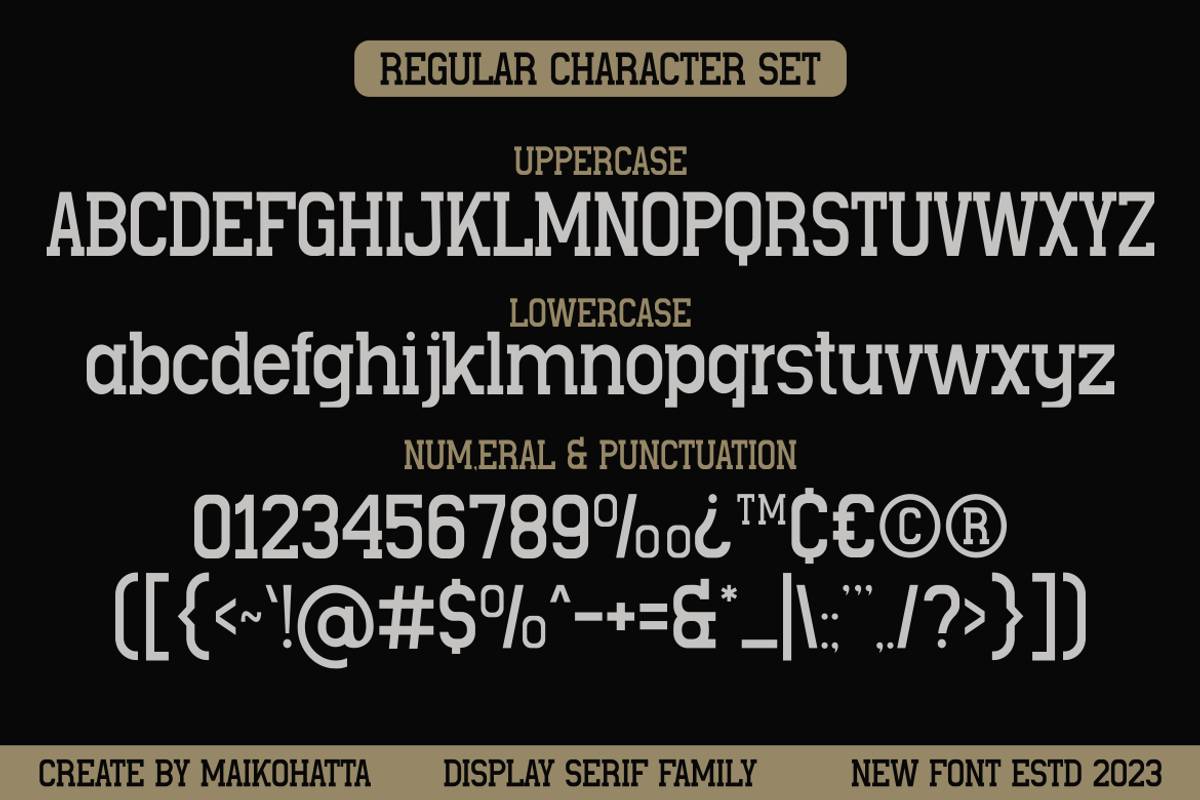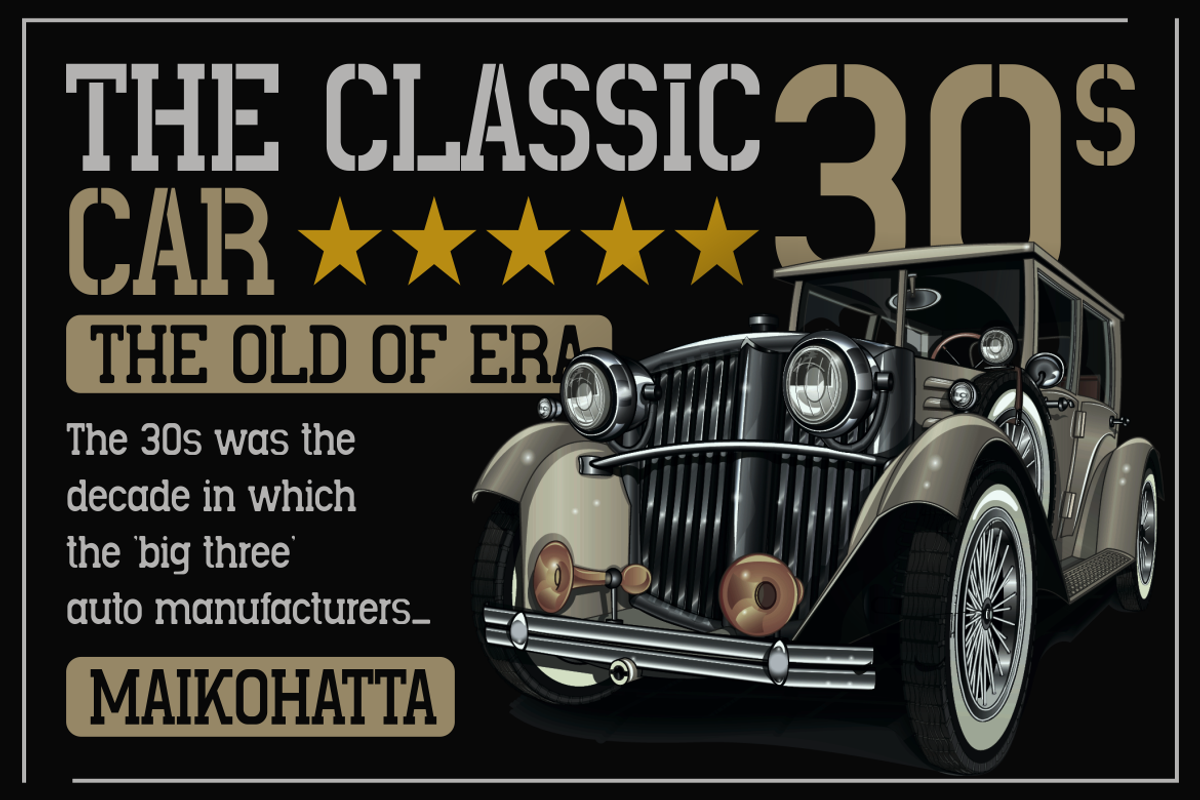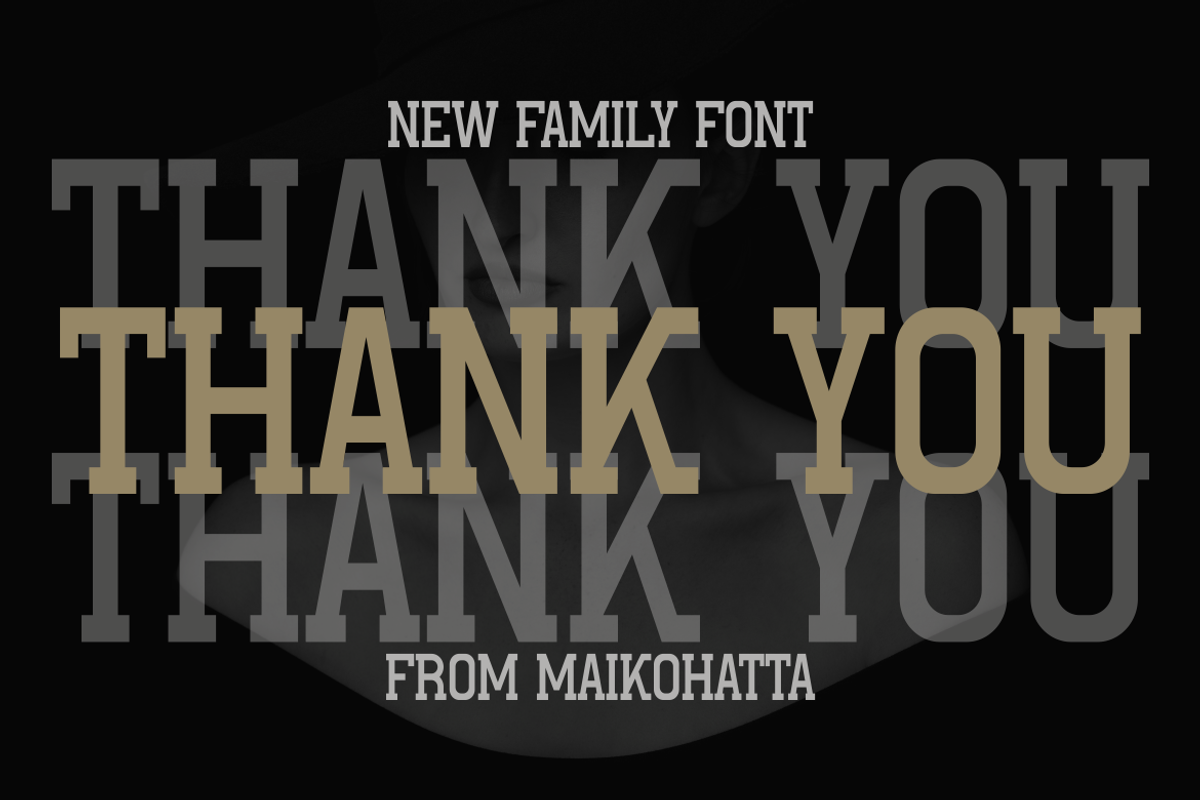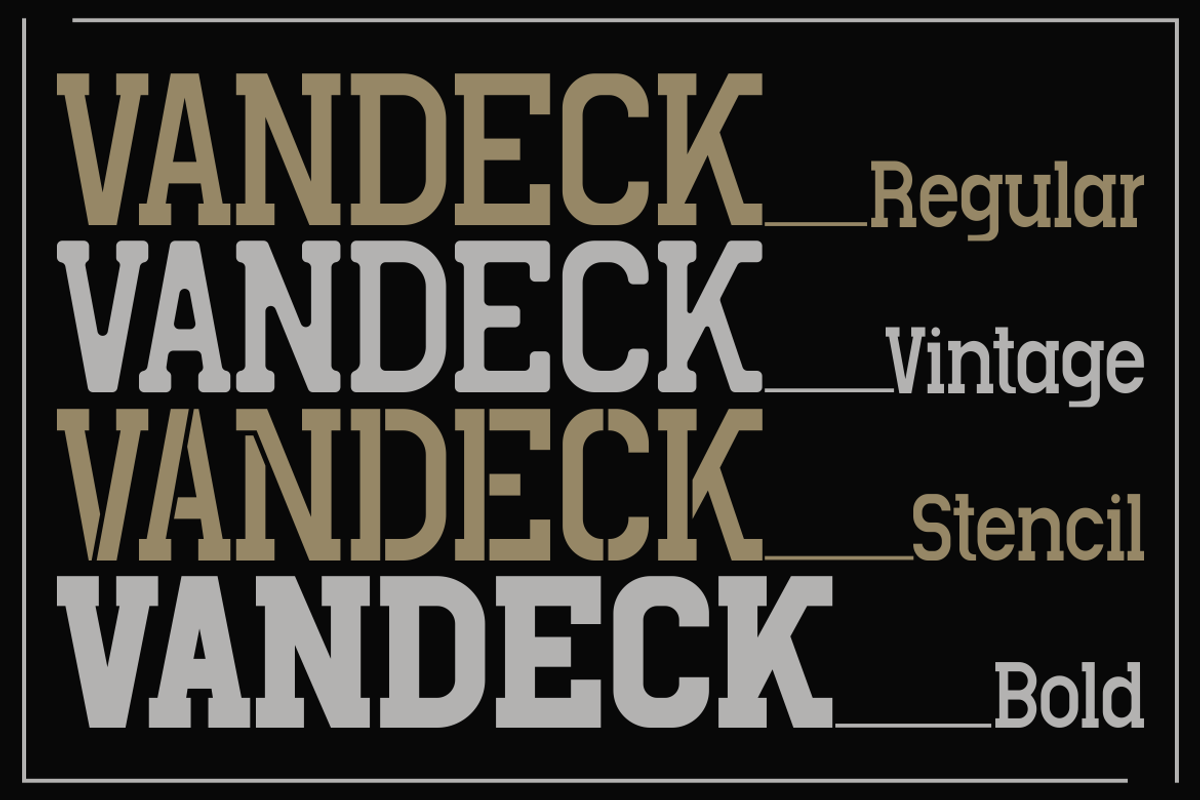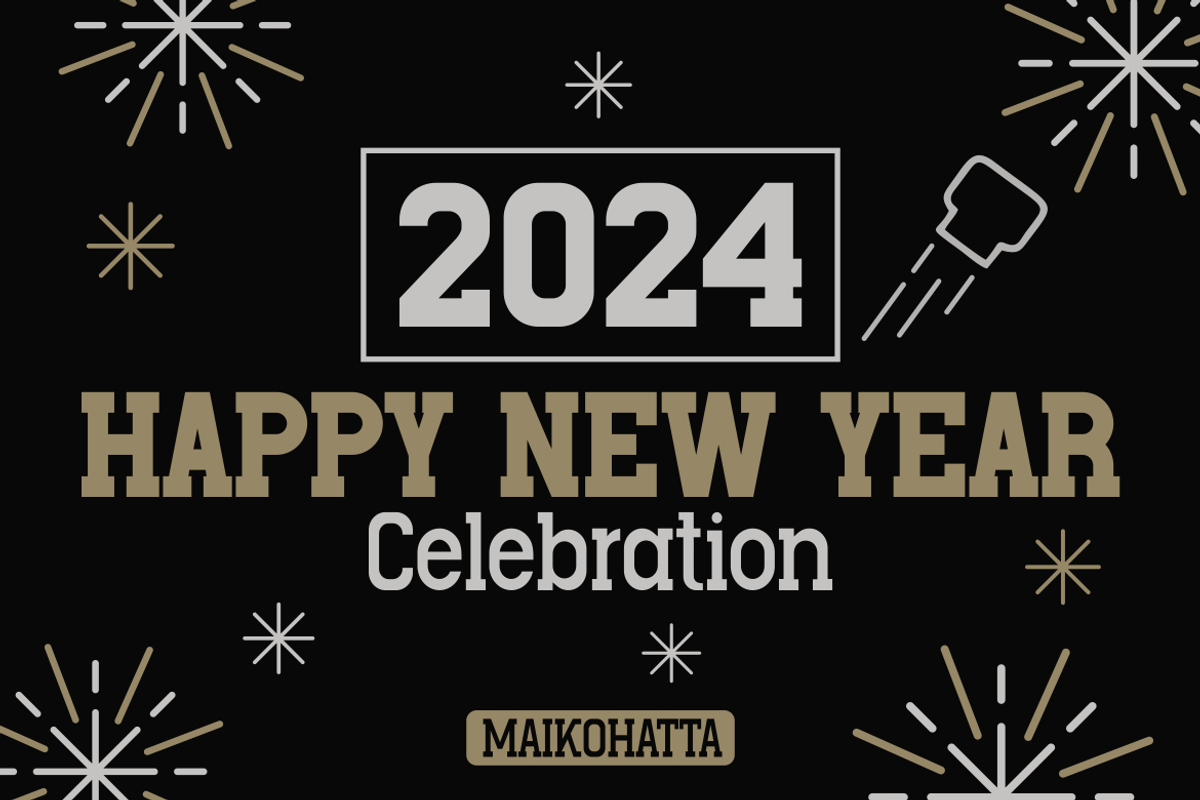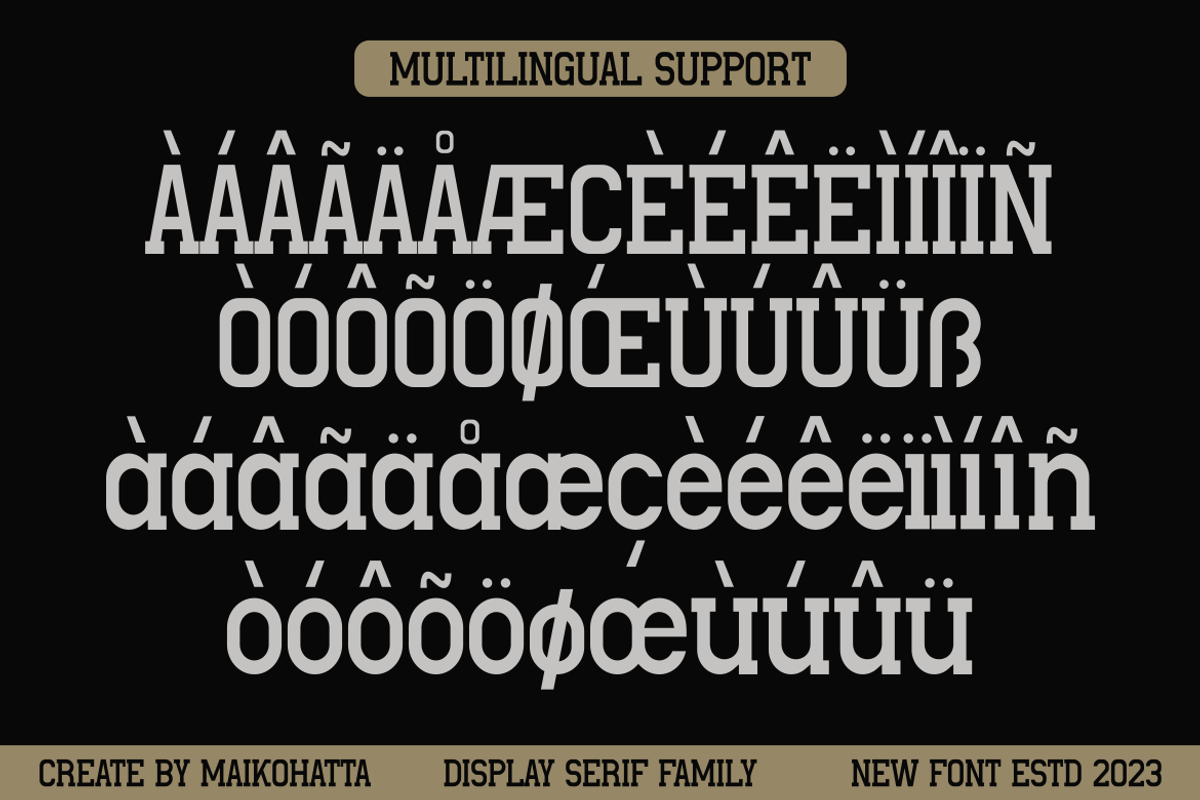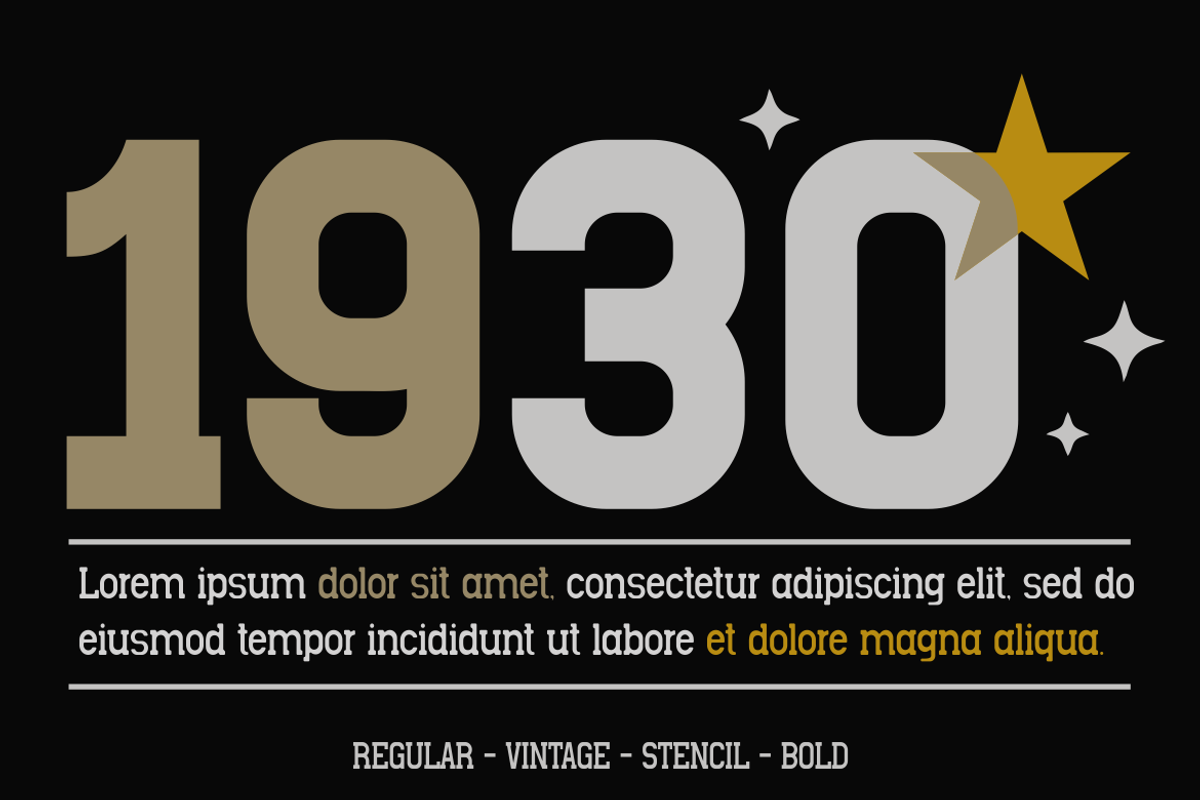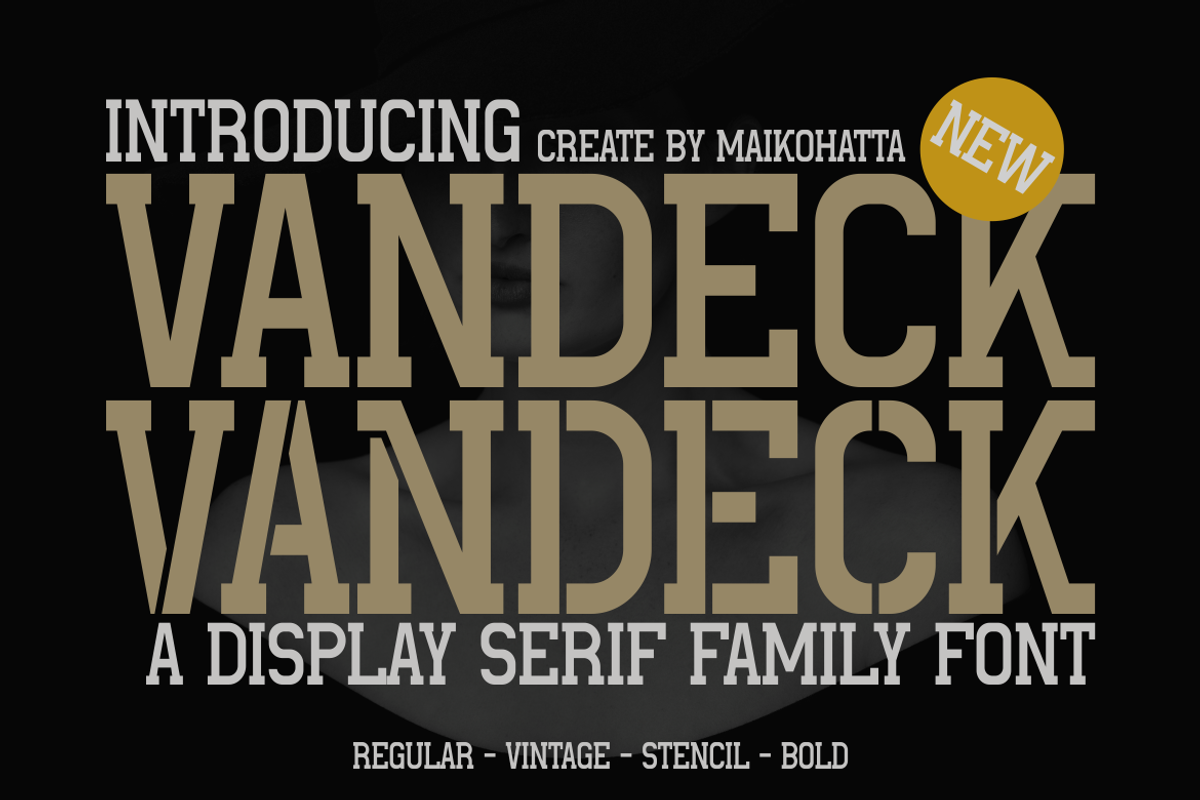
Vandeck - Display Serif Family Font
Introducing our new product Vandeck Display Serif Family Font
By taking advantage of their individual uniqueness, these fonts can provide visual dimension and complexity that enriches the experience of reading or viewing a design. First, classic serif fonts can be used for long text or passages that require clarity. With decorative details, it gives a formal touch that is still elegant. Additionally, vintage serifs can be applied to important elements, such as titles or important quotes. The retro style and decor give it a striking classic feel. In this context, serif stencils can be used to make a bold statement, perhaps on a design element that has visual power. The stencil pattern gives a modern and futuristic impression. Lastly, bold serifs can be applied to headlines or design elements that require extra focus. Bold lines provide boldness and charm that can quickly attract attention.
Style Font
- Vintage
- Stencil
- Bold